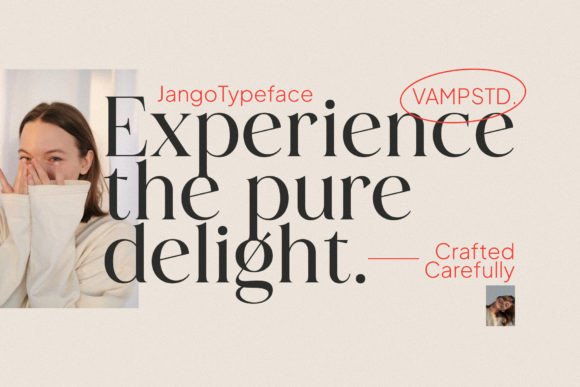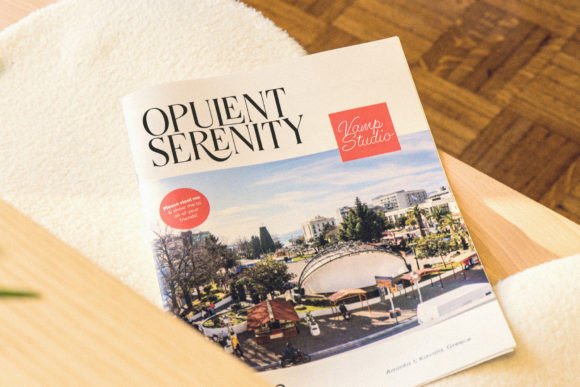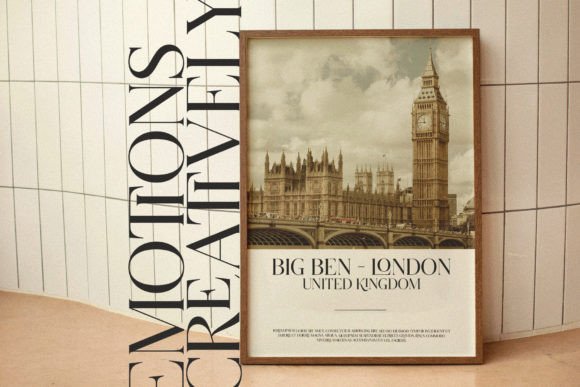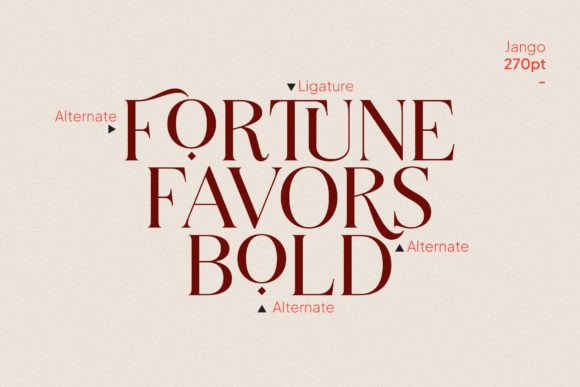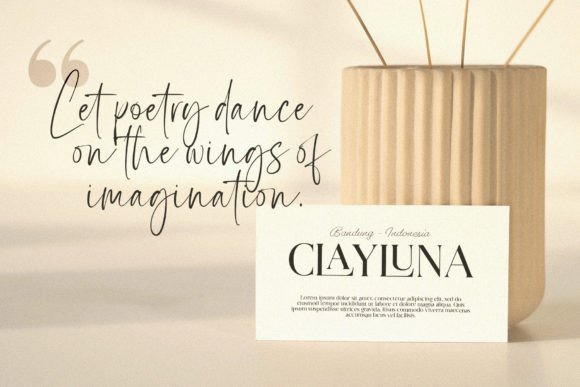
Introduction to Jango Font
Have you ever stared at a blank page, trying to come up with the perfect design for your next project? The pressure to create something unique and eye-catching can be overwhelming. But what if you had the perfect tool to elevate your design game? Look no further than the Jango Font, a modern elegant and stylish serif typeface that’s sure to impress.
With its clean and simple design, Jango Font is the perfect fit for any creative project. Whether you’re designing a logo, creating a social media post, or working on a branding project, this versatile font is sure to deliver. And the best part? It’s PUA encoded, making it easy to access all of the amazing glyphs and ligatures with just a few clicks.
Key Features of Jango Font
- High-quality design resource ideal for creative projects, offering a unique and modern aesthetic.
- Includes multiple font weights and styles, providing versatility for a wide range of design applications.
- Designed to be highly legible, making it perfect for body text, headings, and titles in various creative projects.
Honest Review: Jango Font
As a designer, I’m always on the lookout for high-quality design resources to enhance my creative projects. Recently, I had the chance to work with the Jango Font, and I must say it’s been a game-changer.
- ✨ High-quality design: The font is meticulously crafted with attention to detail, ensuring a professional and polished look in any design project.
- ✨ Versatile: Jango Font is perfect for various creative projects, from branding to digital art, and its transparent background makes it easy to work with.
While the Jango Font excels in many areas, there are a few limitations to consider.
- ⚠️ Limited font weights: The Jango Font only comes in a few weights, which may limit its versatility in certain design projects.
- ⚠️ Not ideal for small text: Due to its bold and playful nature, the Jango Font may not be the best choice for small text or body copy.
Overall, I’m impressed with the Jango Font’s quality and versatility. While it may have some limitations, it’s an excellent addition to any designer’s library, especially for creative projects that require a high-quality, free design resource.
Tips for Getting the Most Out of Jango Font
To get the most out of Jango Font, consider the following tips:
- Use the font with a transparent background for a clean and minimalist look.
- Experiment with different font sizes and styles to add visual interest to your design. Alternatives to Jango Font
- Choose a high-contrast color scheme to make the font stand out.
- Use the Jango Font in a large, bold size to grab attention.
- Combine with a transparent background to give the design a modern feel.
- Pair the Jango Font with simple shapes and lines to create a clean, minimalist look.
- Use a subtle gradient or texture to add depth to the design.
- Use the Jango Font in a variety of sizes and styles to create visual interest.
- Combine with bold, bright colors to make the graphics stand out on social media feeds.